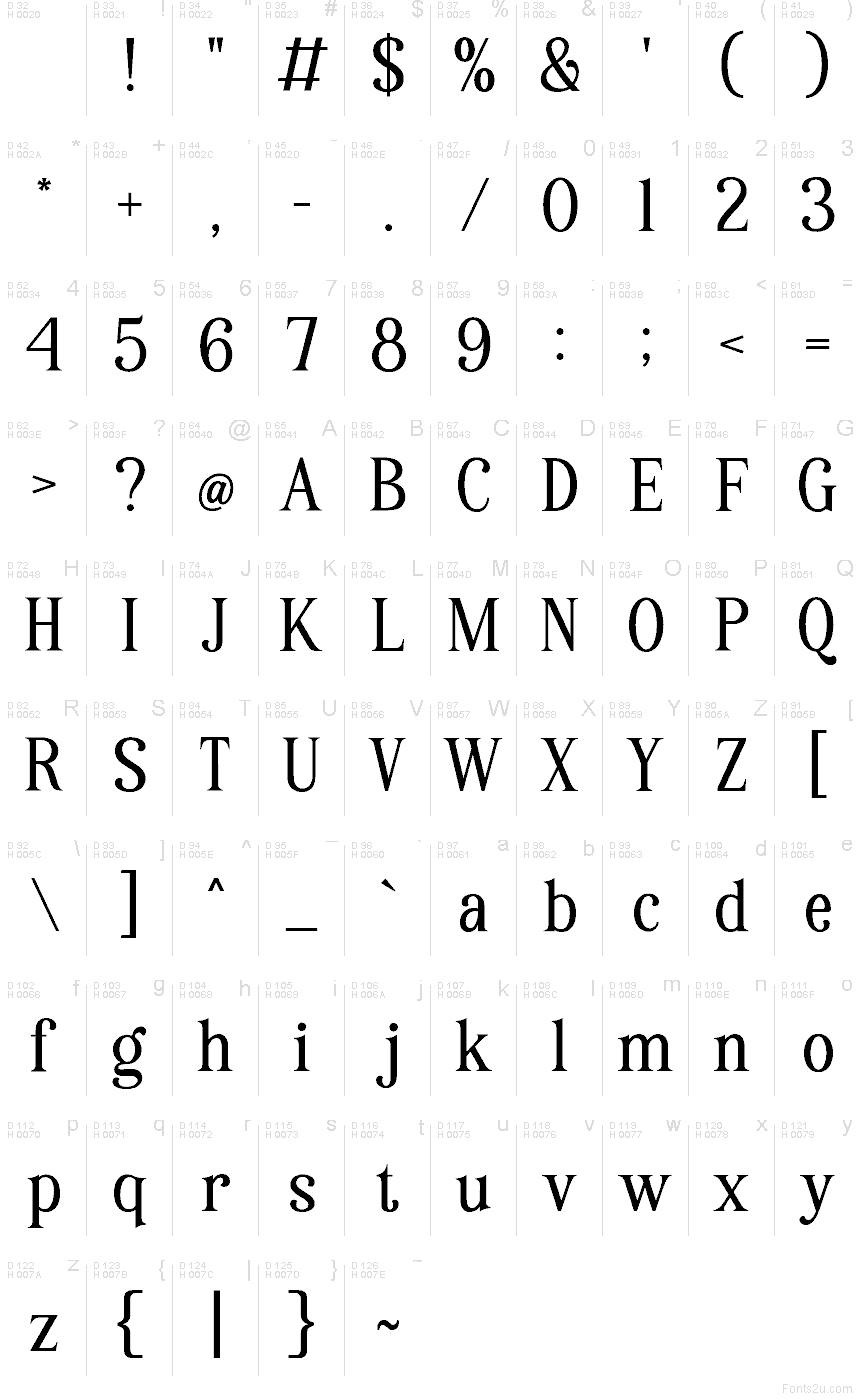
History Nineties
History Nineties font by Burhan Afif of HansCo Studio is a free serif typeface that bottles up that sleek, ’90s magazine look. Its tall, narrow forms, firm vertical stress, and tidy, slightly sharp serifs give text a polished, editorial feel without looking stuffy. Letters sit close with a smooth rhythm, so headlines feel tight and confident while still staying legible at smaller sizes.
Using History Nineties, you can give a subtle retro edge to fashion branding, posters, book covers, zines, social graphics, and stylish packaging. This free font shines on titles and pull quotes, then can be paired with a clean geometric sans for body copy to keep layouts airy and modern.